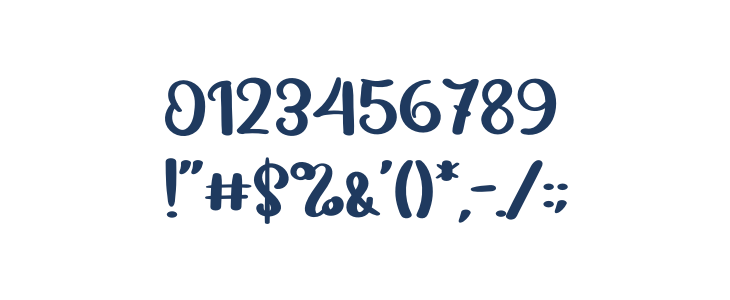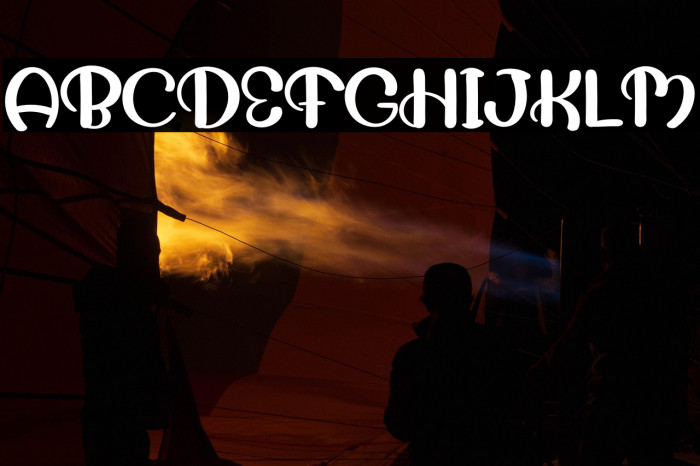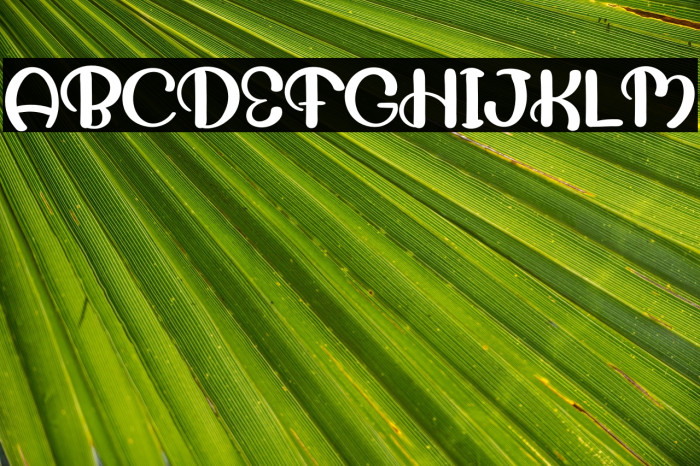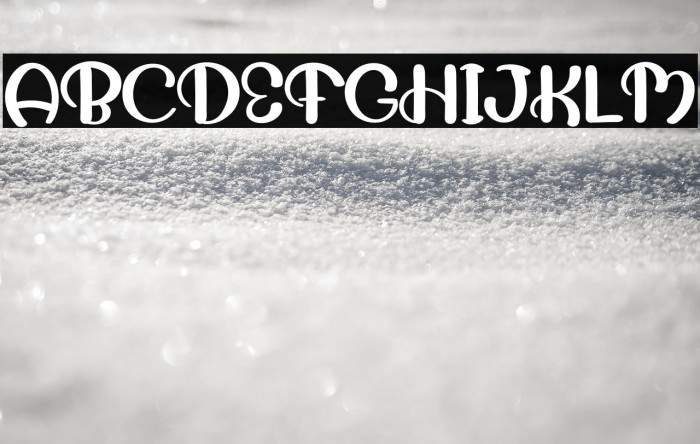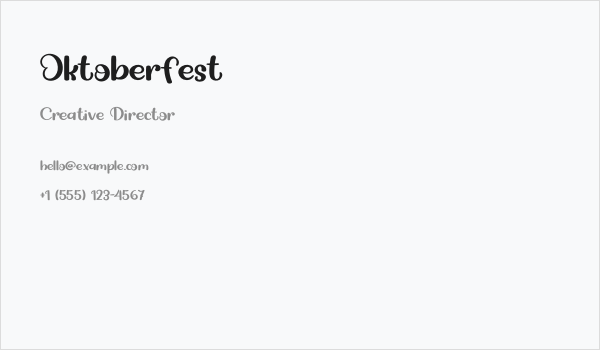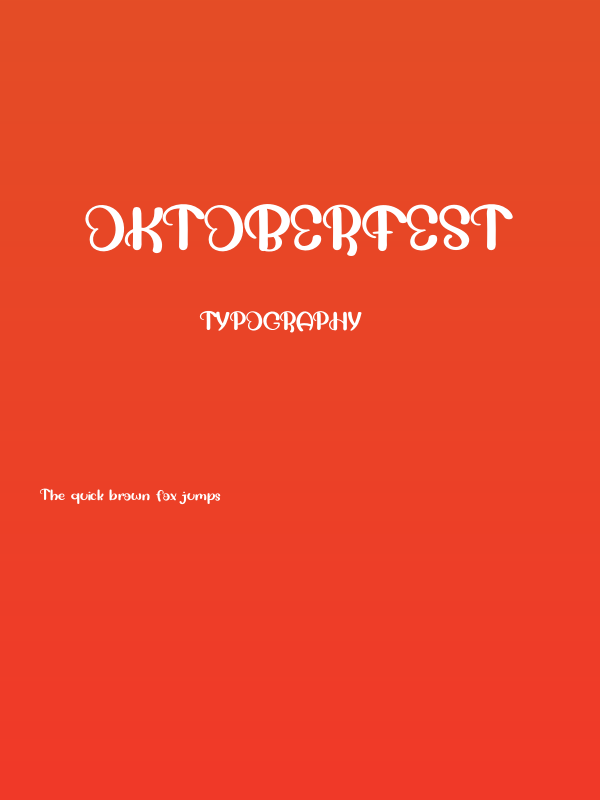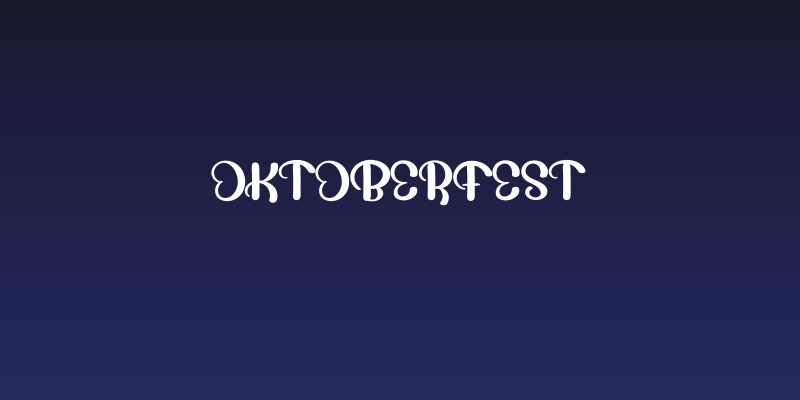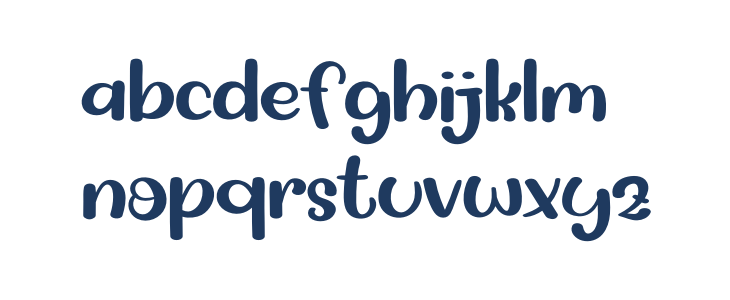
Oktoberfest Font
Oktoberfest Description
This font features a playful and bold design with a distinct, flowing style. The characters have a whimsical, almost calligraphic appearance, with rounded edges and a consistent stroke width that adds to its friendly and approachable look. The uppercase letters are particularly decorative, with unique flourishes and curves that give them a lively personality. The lowercase letters maintain this playful aesthetic, ensuring readability while adding a touch of charm. Numbers and special characters are designed to match the overall style, making them suitable for various creative applications. The font's unique style makes it ideal for projects that require a fun and engaging visual element.
Overall StylePlayful, Whimsical
Use CaseHeadlines, Logos, Invitations
Proposed ProjectsIdeal for children's books, party invitations, festive banners, and playful branding.